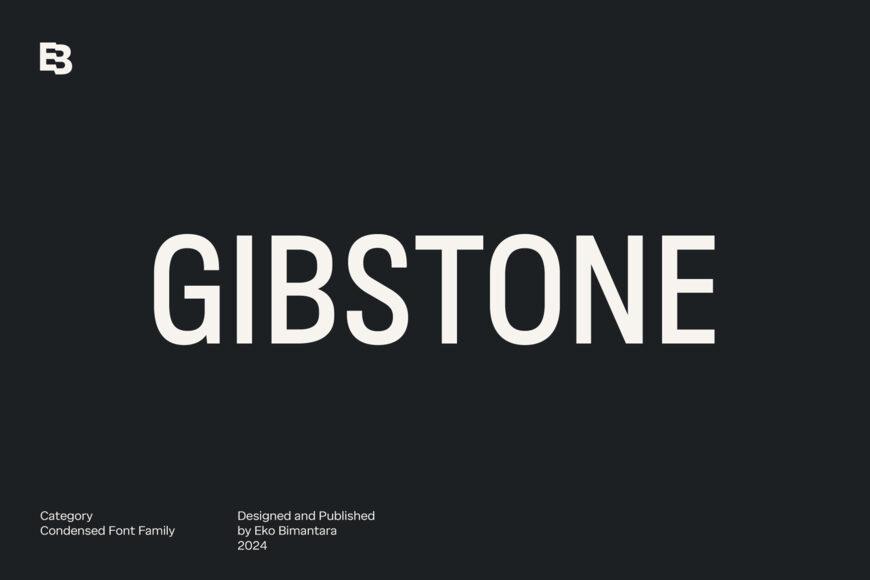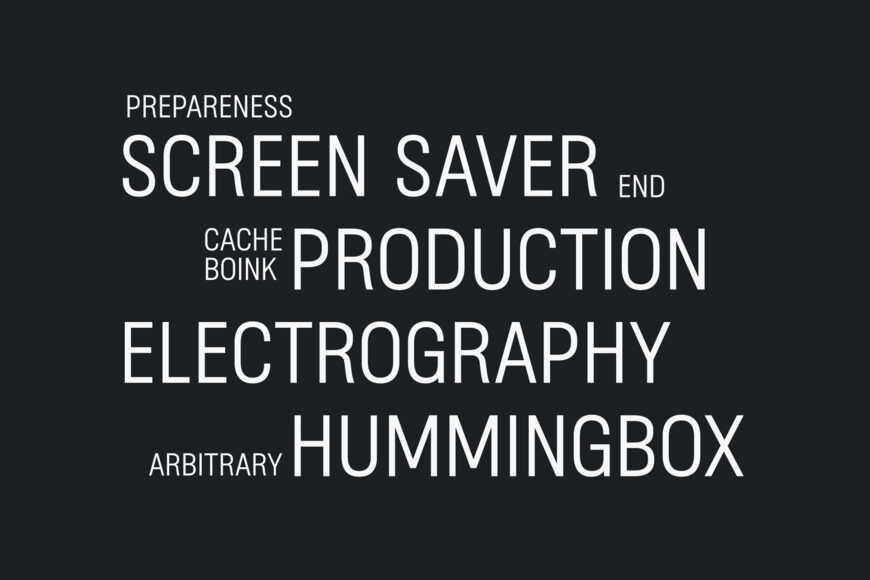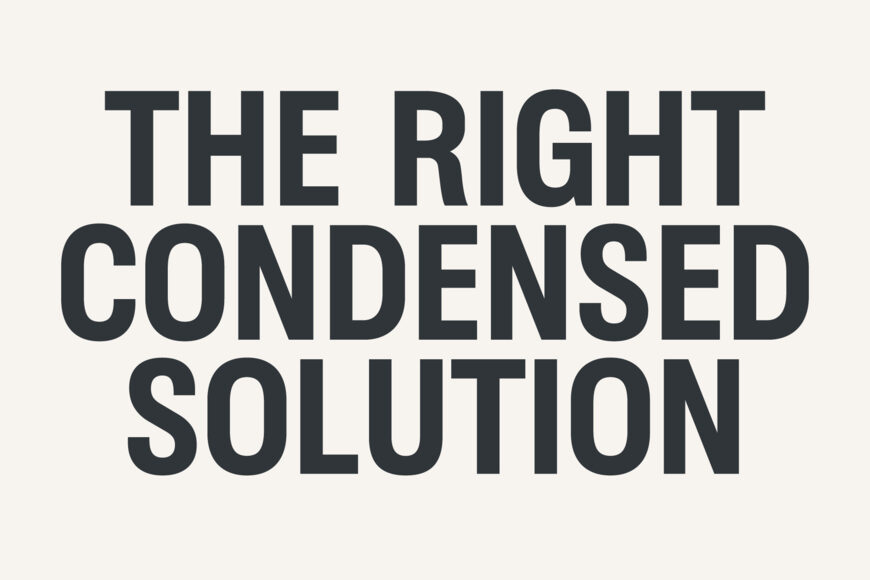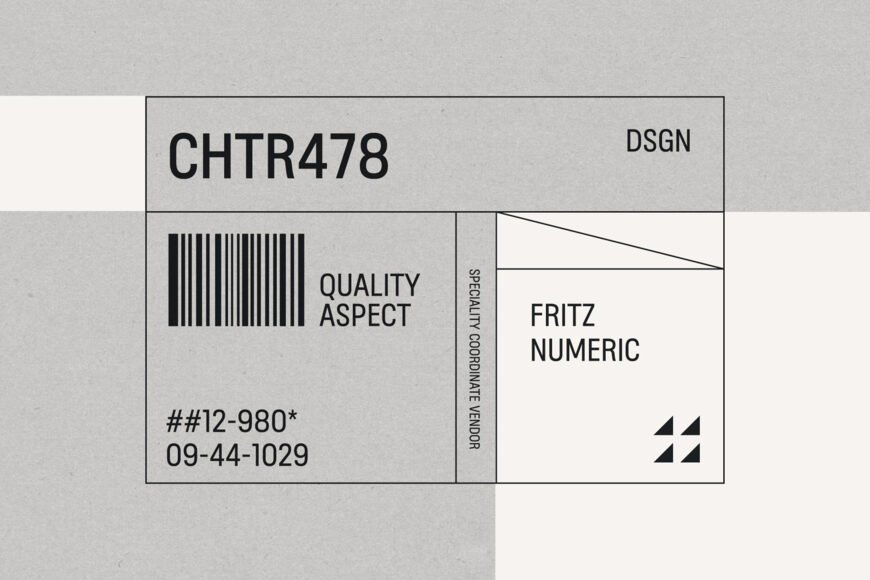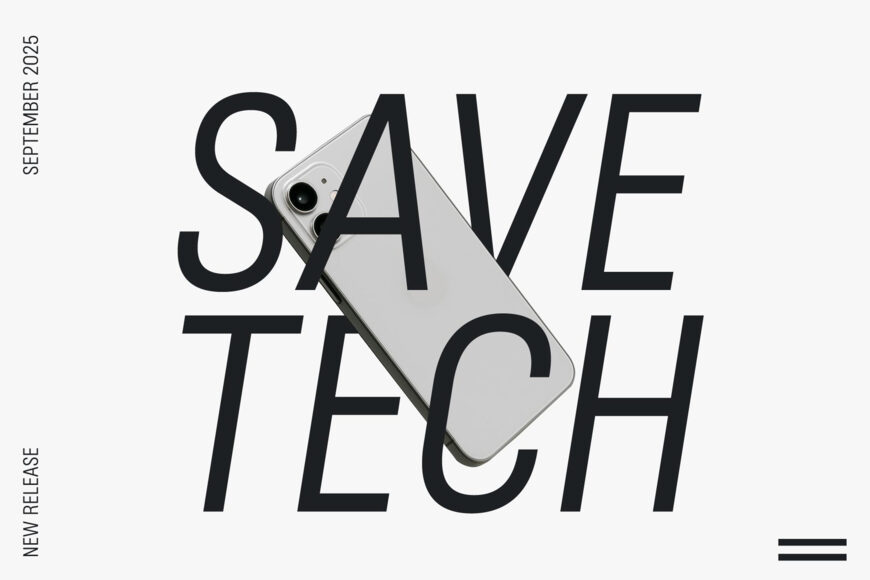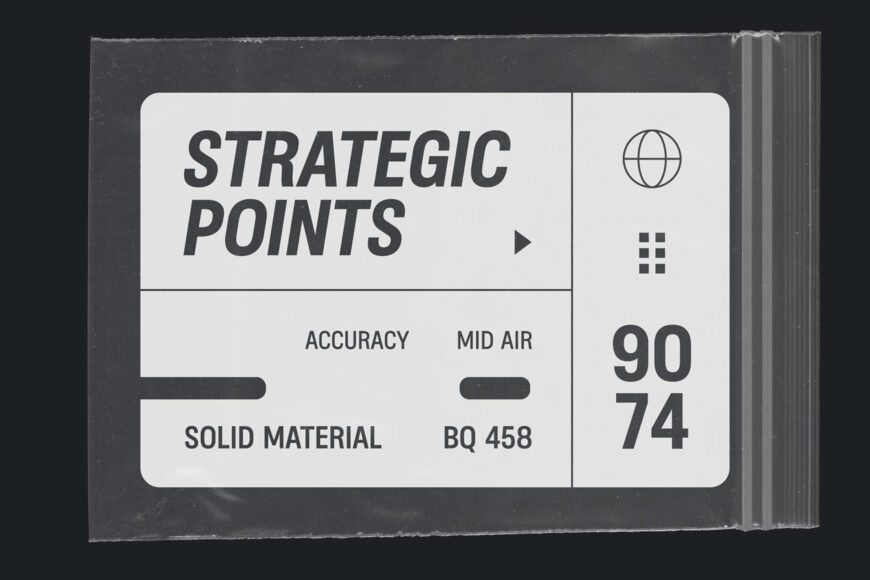
Gibstone is a modern condensed sans serif font family that combines simplicity, boldness, and versatility in a clean, impactful design. Featuring 16 styles from Thin to Black with matching obliques and broad Latin language support, it is well suited for displays, headers, layouts, logos, websites, brand identities, product packaging, and text.
With its straightforward design and adaptable character, Gibstone provides a reliable type family for a wide range of graphic design and creative applications.